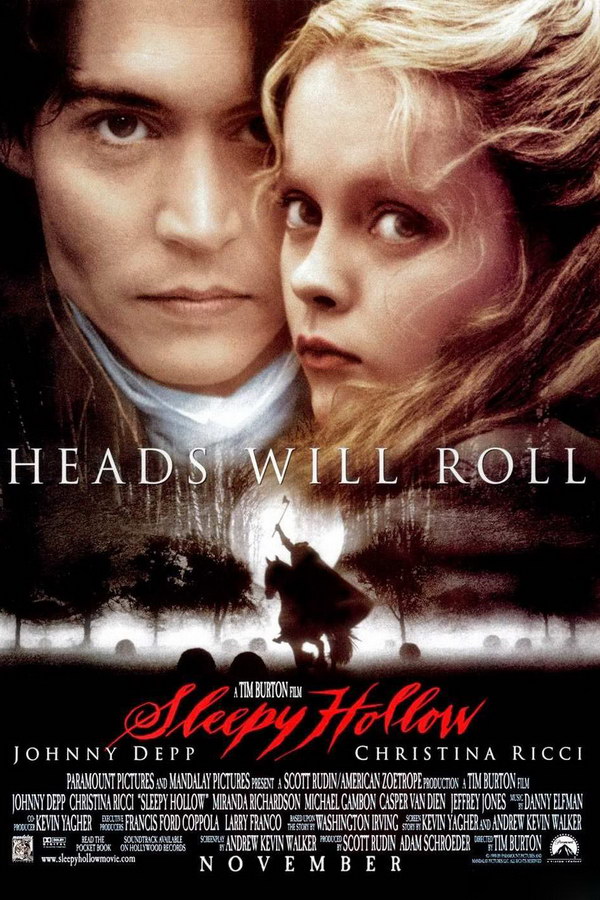
Sleepy Hollow Font
Fonts in UseSleepy Hollow is a 1999 supernatural horror film directed by Tim Burton, starring Johnny Depp as Ichabod Crane investigating a series of murders in the village of Sleepy Hollow, New York, based on Washington Irving's short story "The Legend of Sleepy Hollow."
The font used in the Sleepy Hollow movie's theatrical poster title bears a striking resemblance to the Sleepy Hollow font by Flimhimmel, which is downloadable for free from the Fonts Used Section.